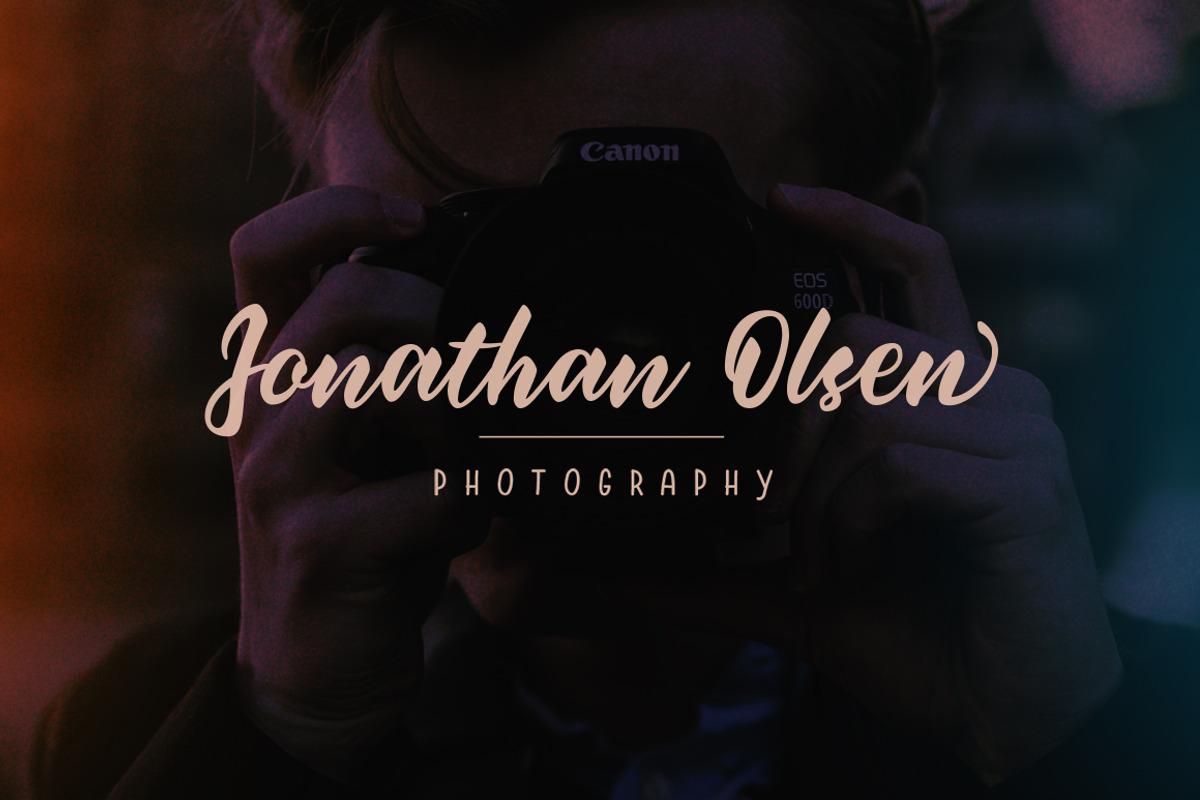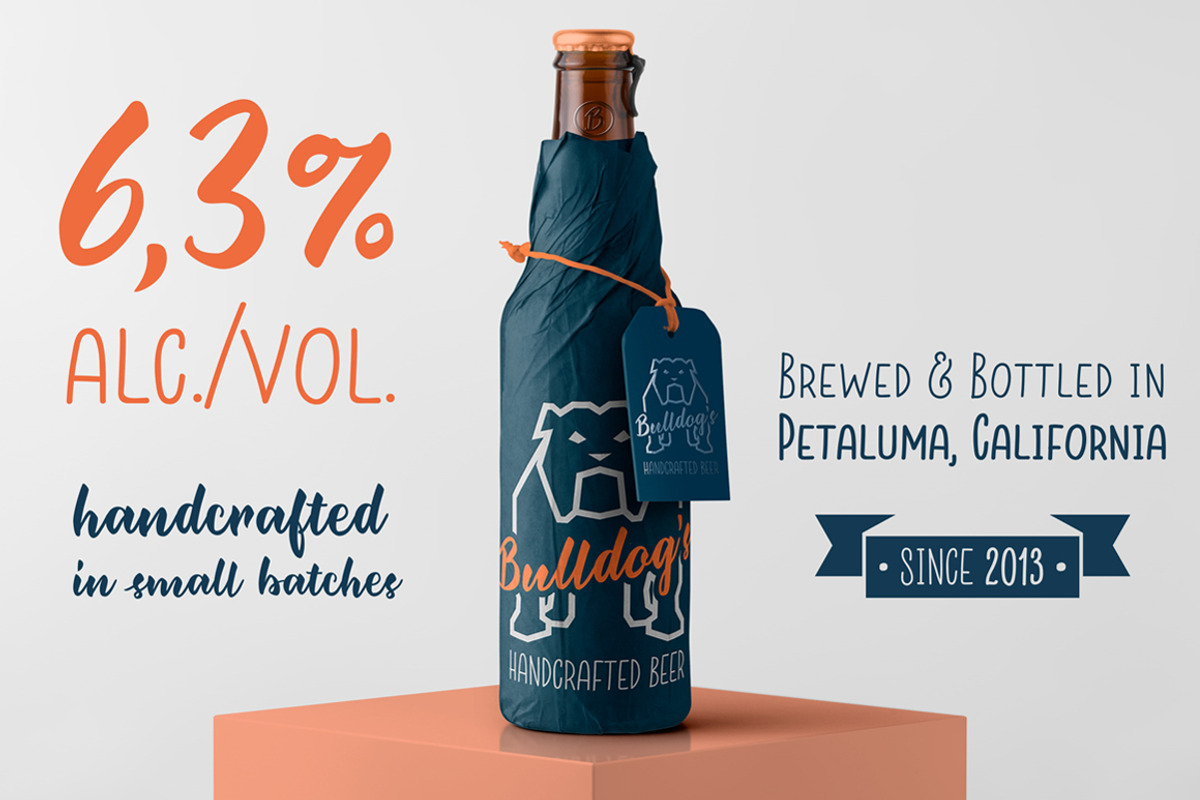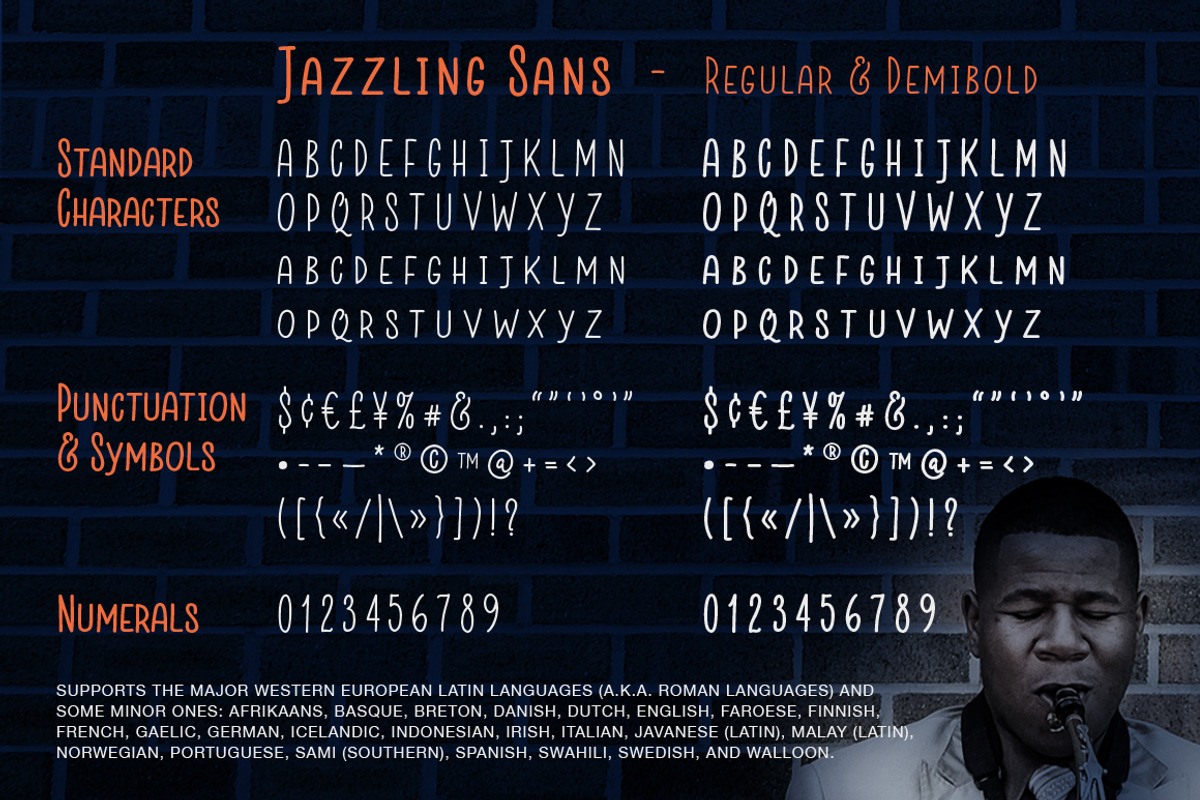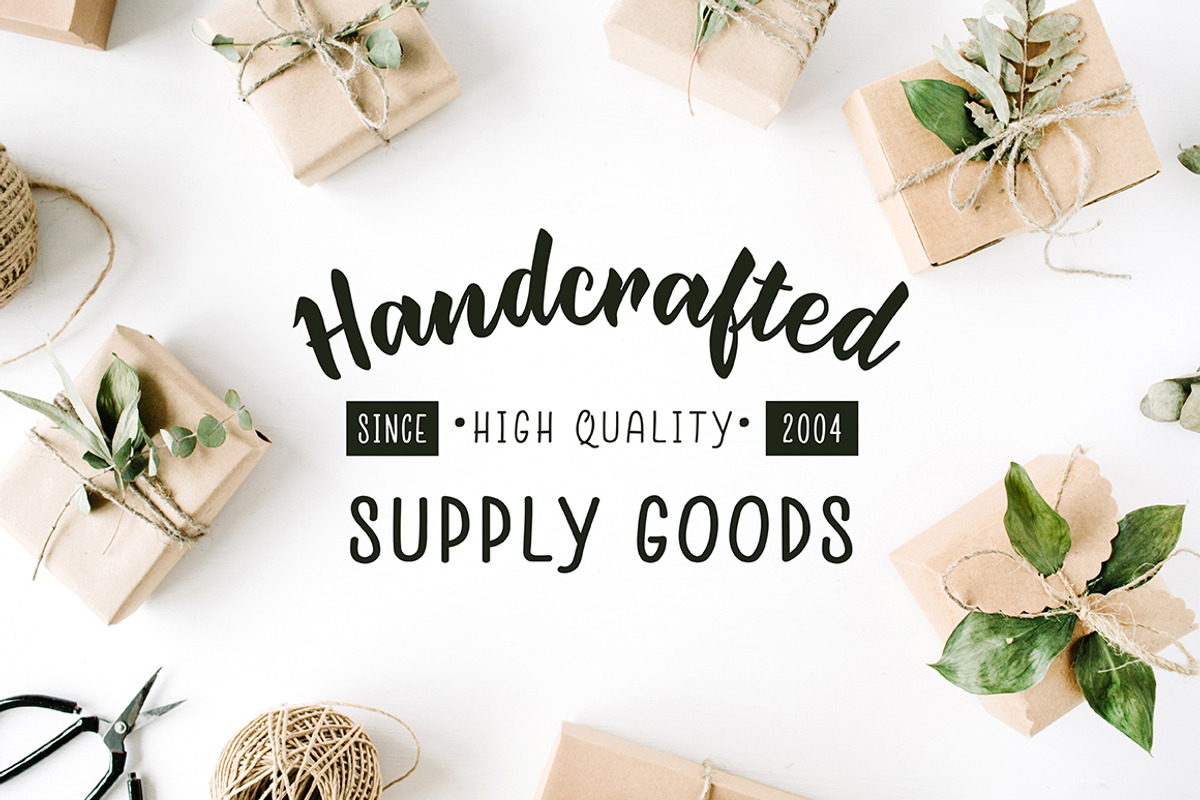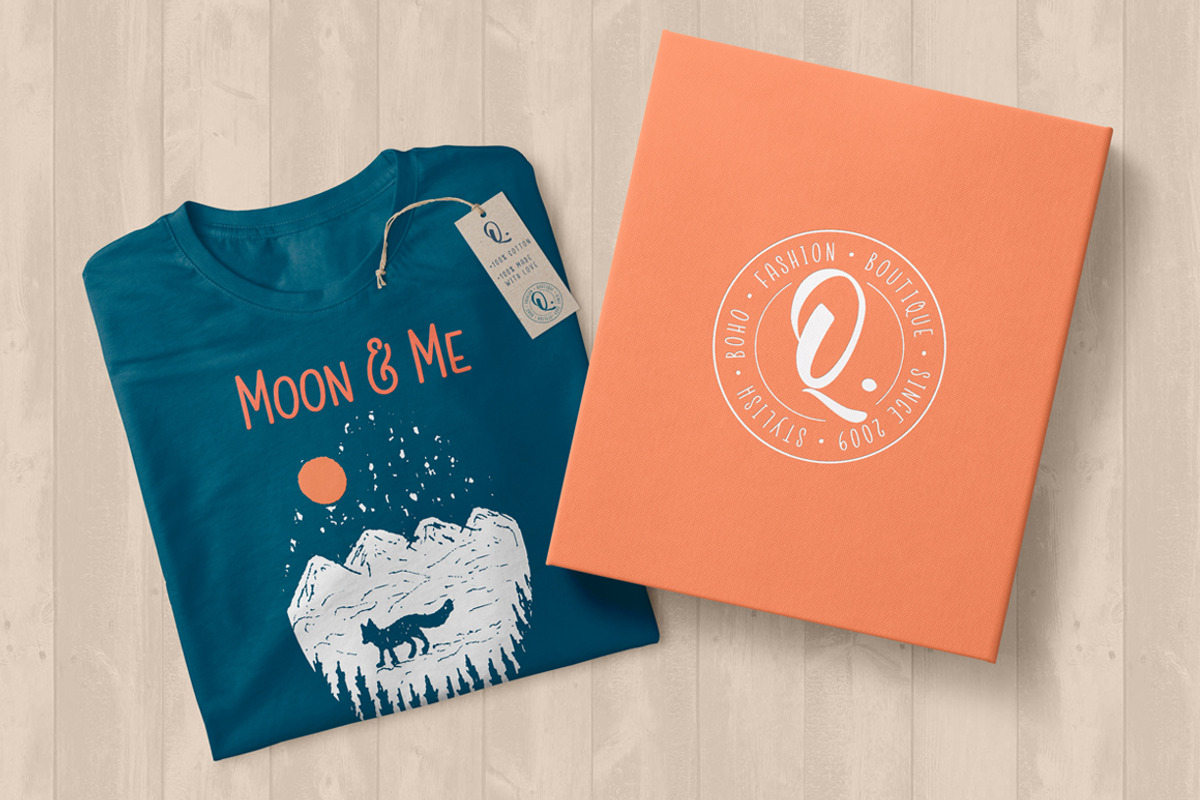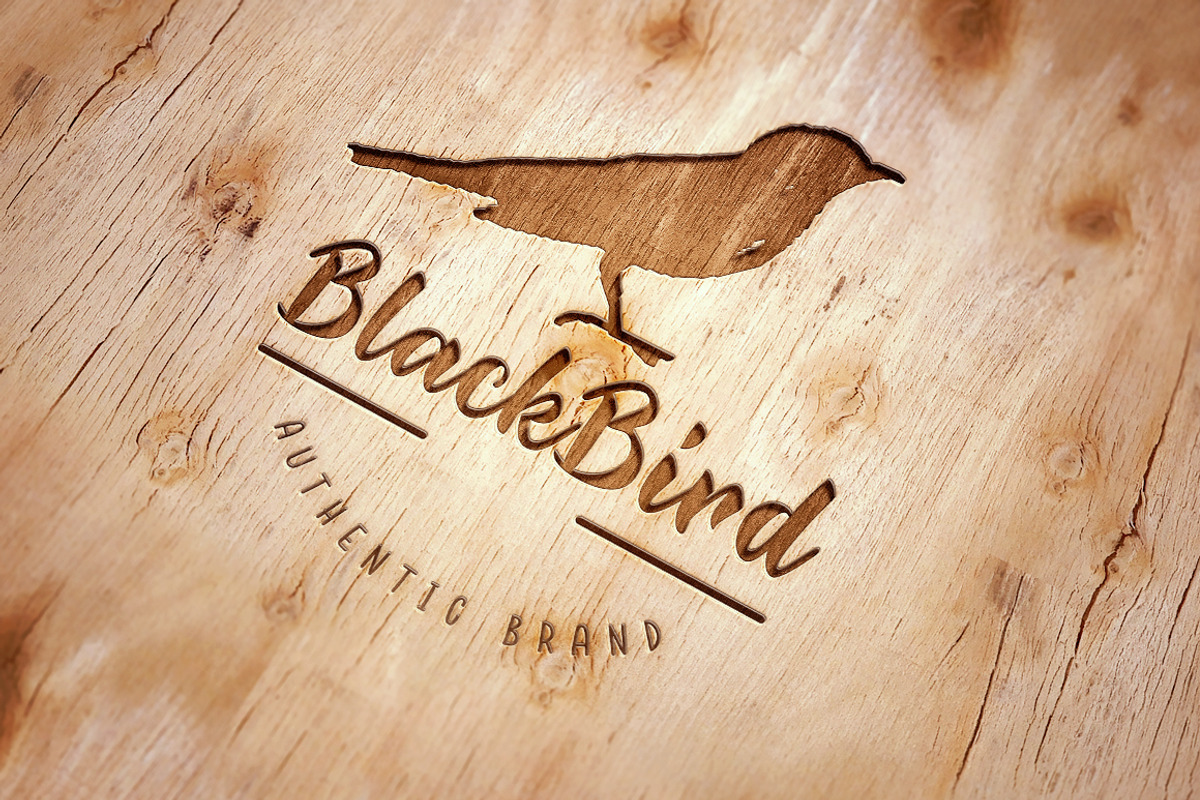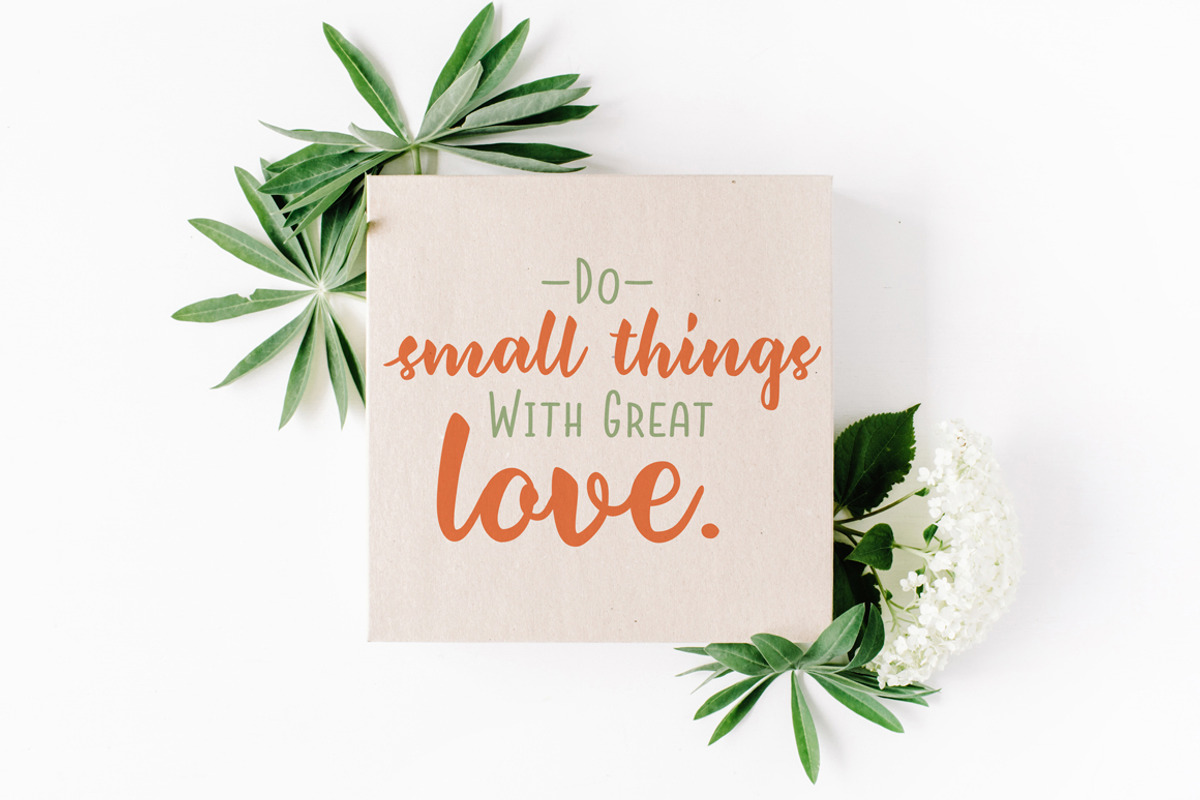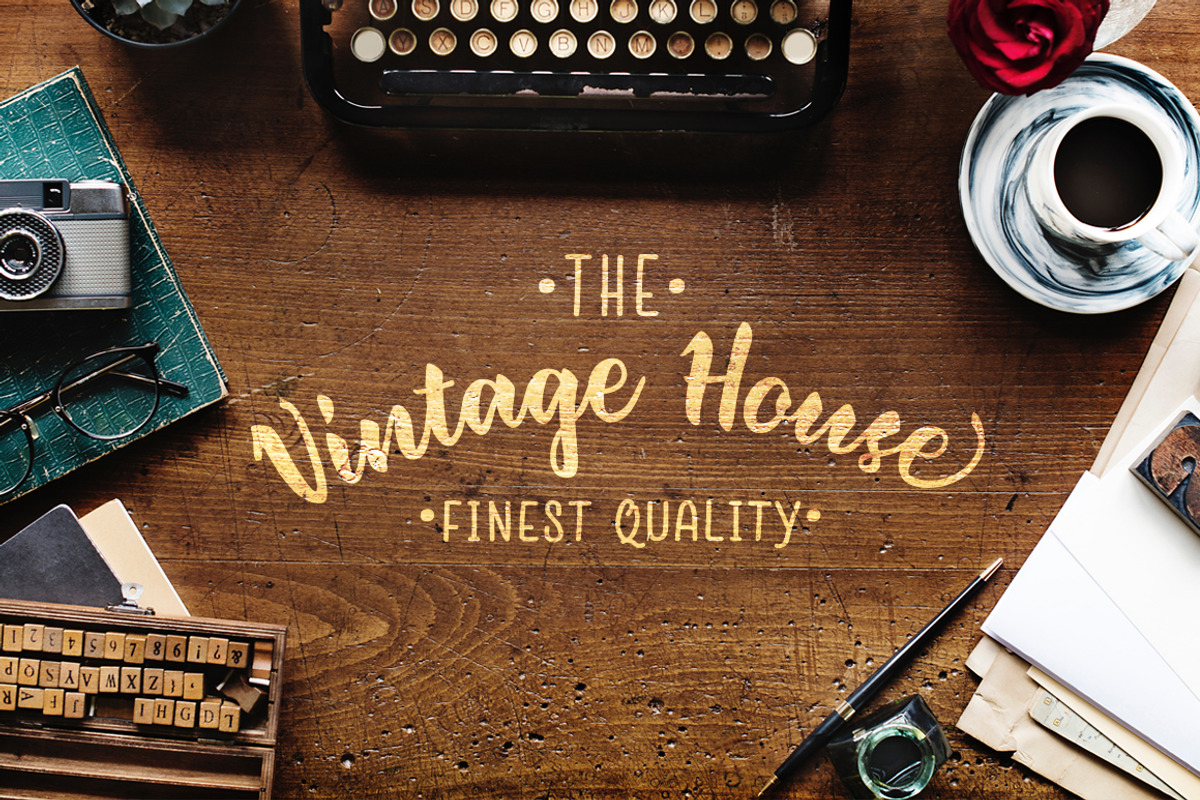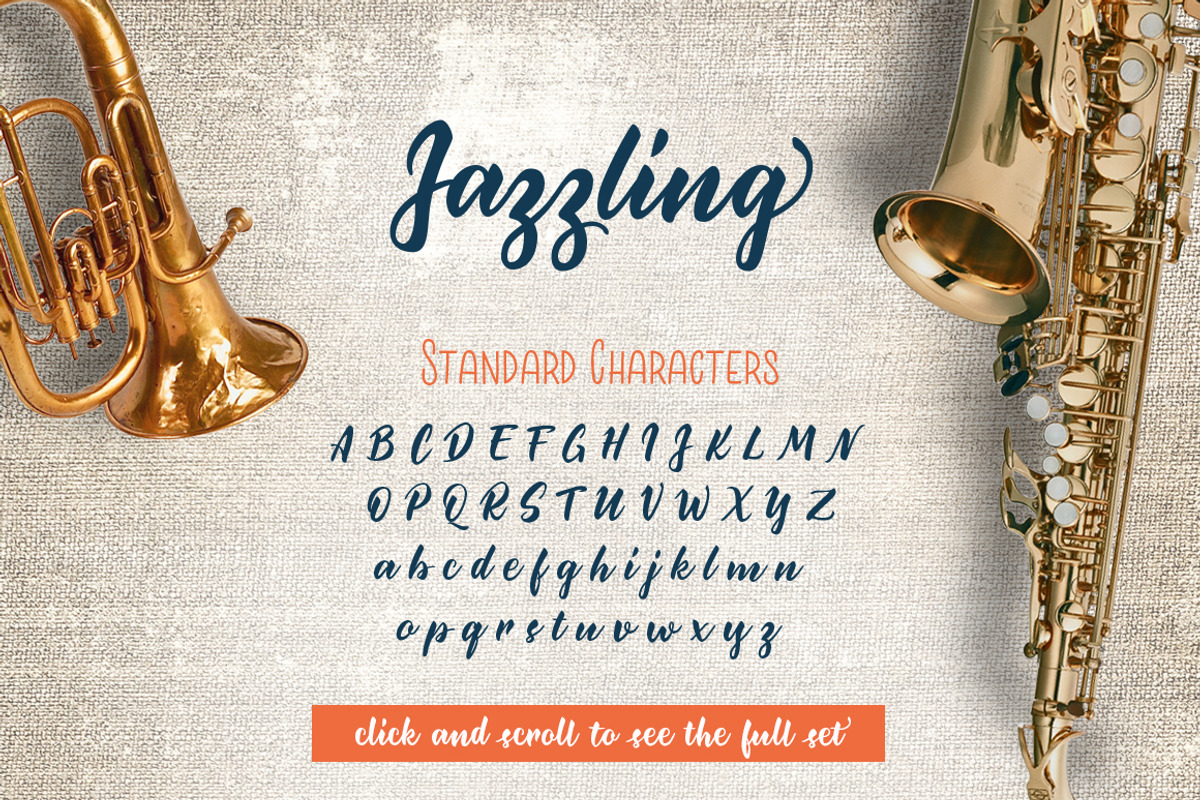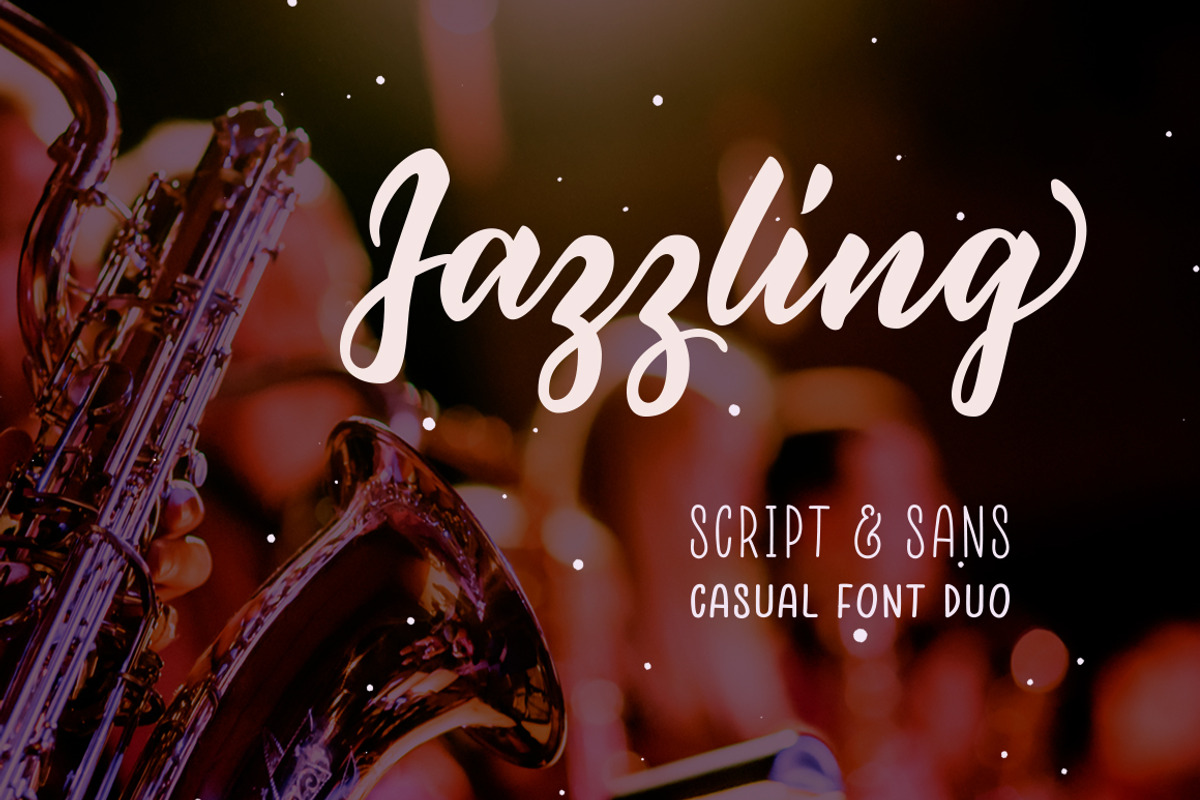
Jazzling - Script & Sans Font Duo
Jazzling is a script font, originally made with a brush pen, then digitized. It comes in both slanted and upright versions. I've also included a complimentary sans serif font, in regular and demibold weights.
The Jazzling Duo has a vintage yet modern calligraphy feel to it. Its casual, friendly elegance is perfect for branding, logo design, packaging, merchandise, t-shirt, quotes, social media, editorial and much more!
Jazzling Script, both slanted and upright, comes packed with opentype features like ligatures and stylistic alternates. Browse through the preview images to see some design examples.
Multilingual support covers the following languages: Afrikaans, Albanian, Asu, Basque, Bemba, Bena, Chiga, Cornish, Danish, Dutch, English, Faroese, Filipino, French, Friulian, Galician, German, Gusii, Icelandic, Indonesian, Irish, Italian, Kabuverdianu, Kalenjin, Kinyarwanda, Luo, Luxembourgish, Luyia, Machame, Makhuwa-Meetto, Makonde, Malagasy, Malay, Manx, Morisyen, North Ndebele, Norwegian Bokmål, Norwegian Nynorsk, Nyankole, Oromo, Portuguese, Romansh, Rombo, Rundi, Rwa, Samburu, Sango, Sangu, Scottish Gaelic, Sena, Shambala, Shona, Soga, Somali, Spanish, Swahili, Swedish, Swiss German, Taita, Teso, Vunjo, Welsh, Western Frisian and Zulu.